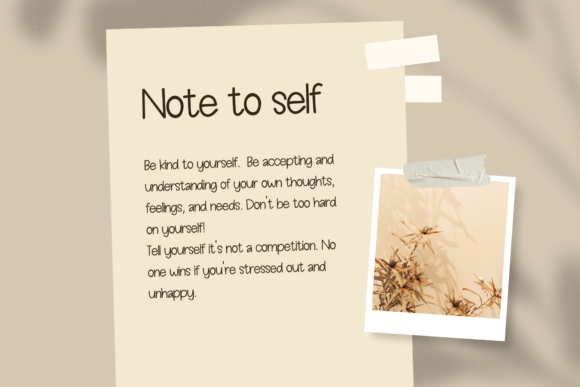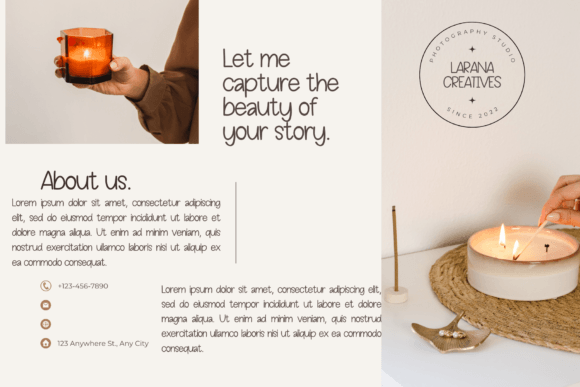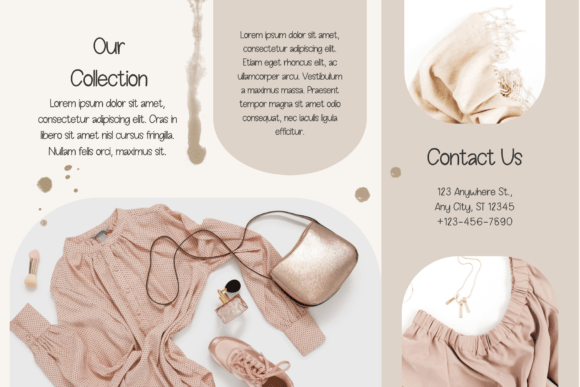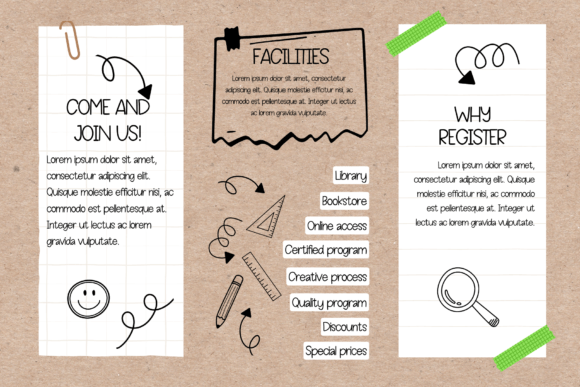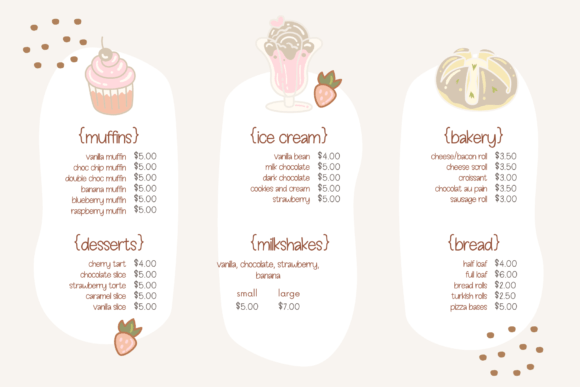
Introduction to Note Library Font
Have you ever stared at a blank canvas, struggling to find the perfect font to bring your creative vision to life? I’m sure many designers can relate to this moment of frustration. But what if I told you there’s a font that can elevate your designs and make them truly unforgettable?
Enter the Note Library Font, a charming handwritten font that’s perfect for adding a touch of elegance and sophistication to any design project. Whether you’re working on a logo, wedding design, or social media post, this font is sure to make a lasting impression. As a valuable design resource, the Note Library Font offers a high-quality solution for designers looking to take their creative projects to the next level.
Note Library Font
- High-quality design resource for creative projects, featuring a unique and elegant aesthetic.
- Perfect for use in logos, icons, graphics, and other design elements where a touch of elegance is required.
Honest Review: Note Library Font
I recently stumbled upon the Note Library Font, and I must say it’s been a great addition to my design resources. This free download has been a game-changer for my creative projects.
- High-quality typography that’s perfect for headings and titles ✨
- Wide range of font styles and weights to suit various design needs ✨
One of the things I appreciate about the Note Library Font is its versatility. It’s perfect for everything from blog posts to social media graphics.
- Some users may find the font a bit too ornate for certain design projects ⚠️
- Not suitable for body text, as it can be a bit overwhelming ⚠️
Overall, I’m thoroughly impressed with the Note Library Font. Its unique style and high-quality design make it a valuable resource for any designer looking to elevate their creative projects.
Note Library Font
To get the most out of Note Library Font, use it in conjunction with other design elements to create a cohesive and visually appealing design. Experiment with different font sizes, colors, and styles to find the perfect combination for your project.
Note Library Font is commonly used in creative projects such as infographics, presentations, and reports. It’s also ideal for design resources like social media graphics, blog posts, and website headers.